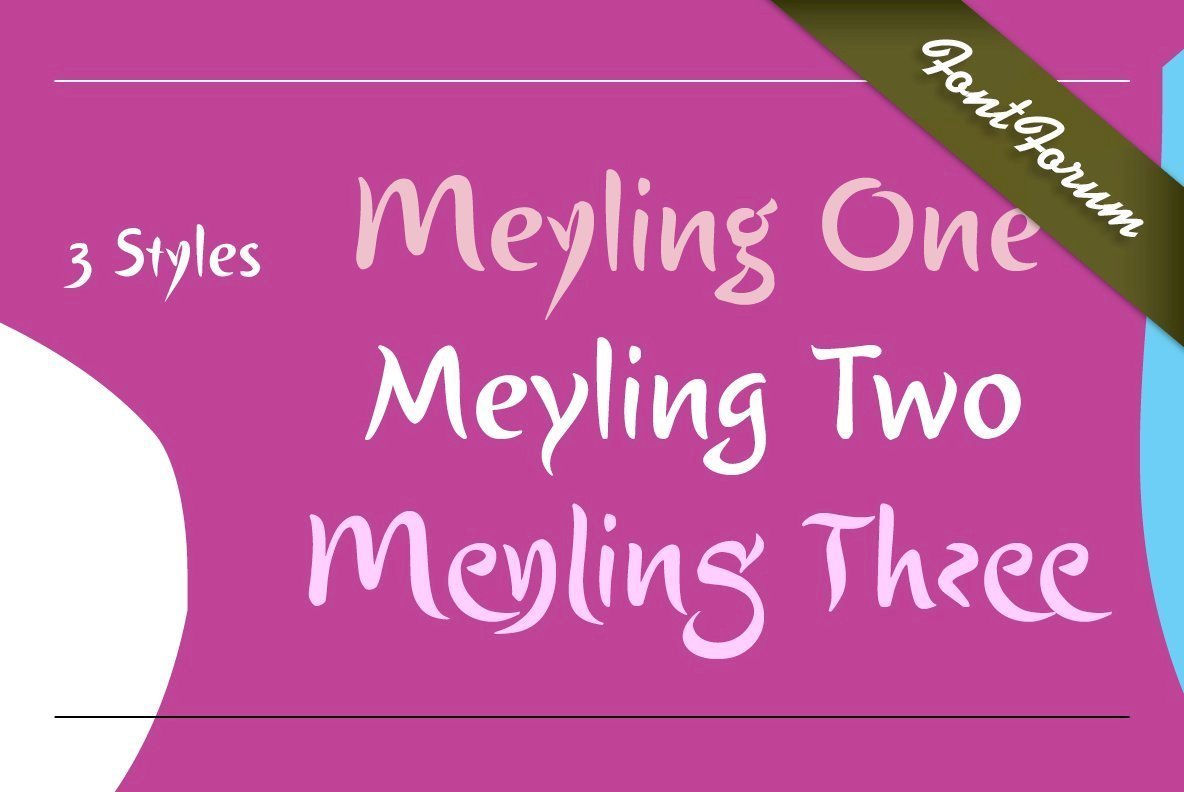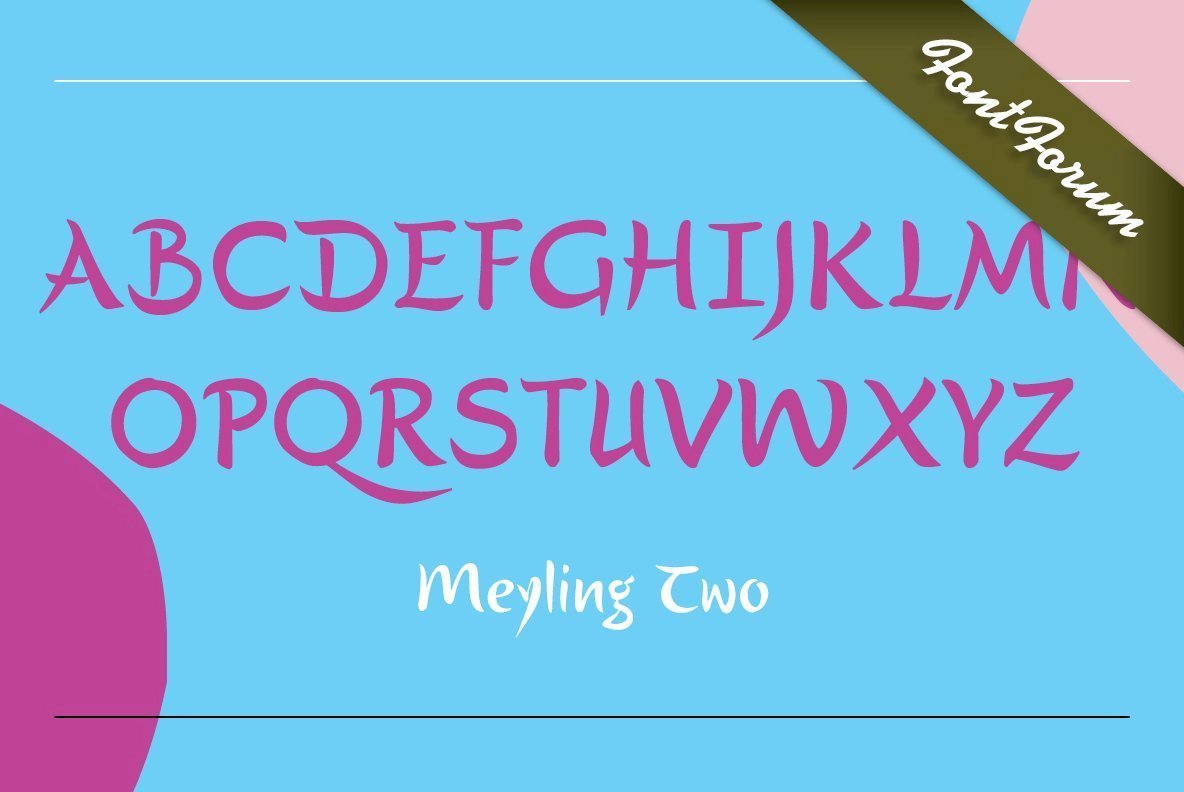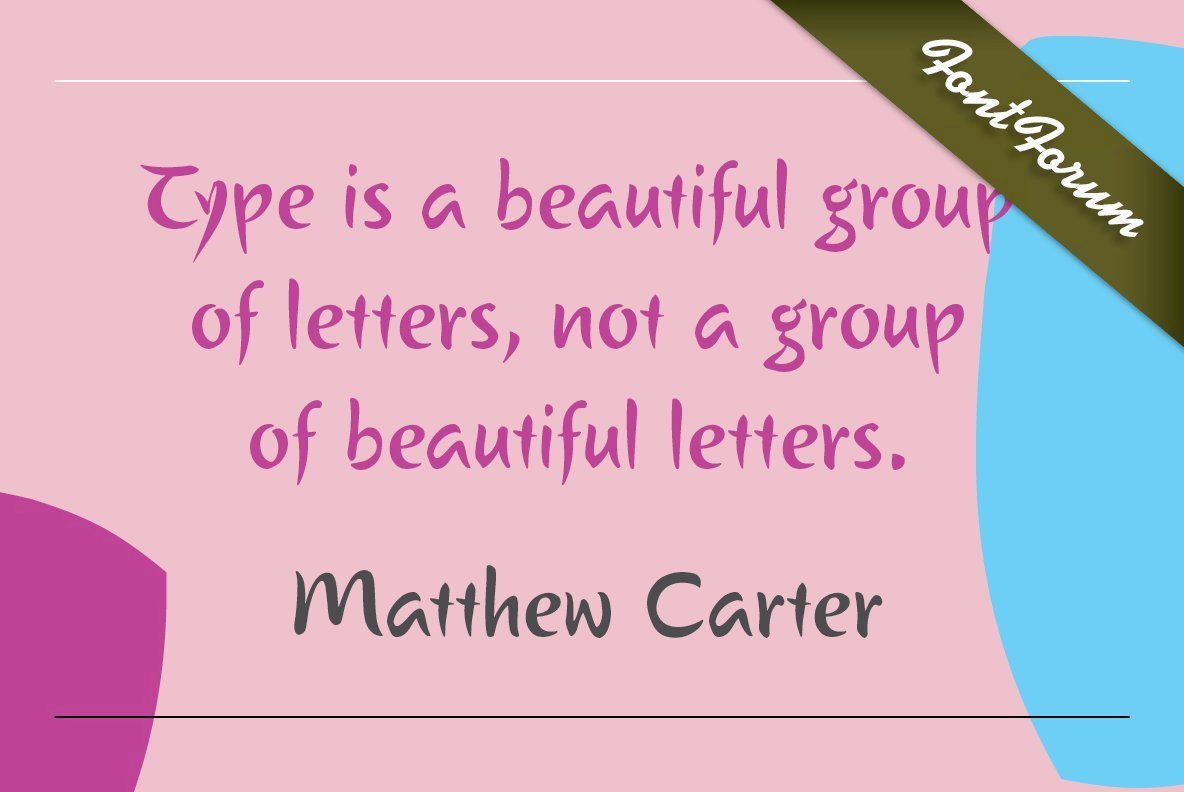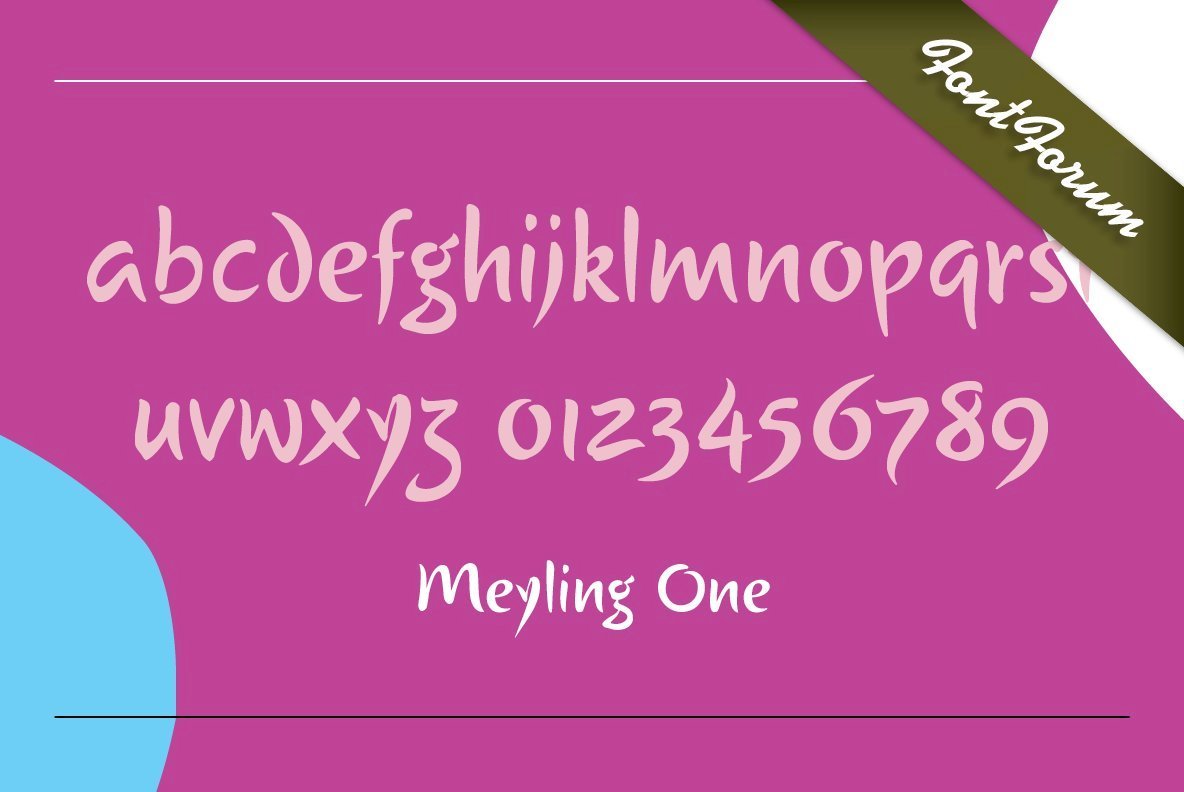
Meyling Font
Three carefully crafted script styles by the Brazilian type designer João Henrique Lopes. Another type project by Joao in which each style can be written by itself but combined they have an unique vitality and develop their full potential. An excellent readability make Meyling the perfect partner for a variety of projects, from stylish invitations to magazine ads, from poetry books to restaurant logos